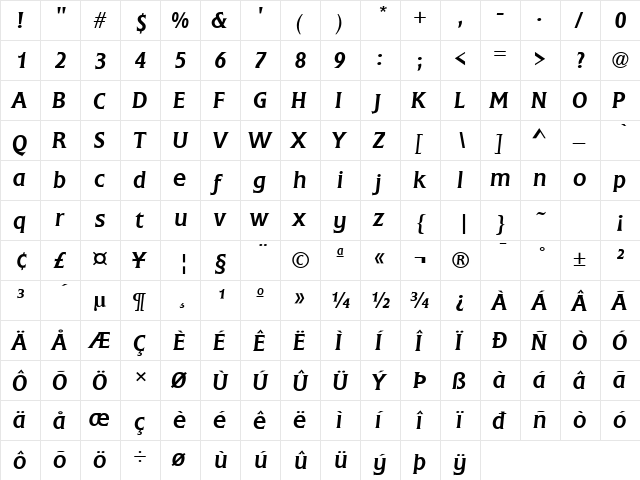
Flare Gothic ITALIC Font Preview
Flare Gothic ITALIC
Design Context for Flare Gothic Typeface
Flare Gothic takes a clean, functional approach — its unadorned letterforms prioritise legibility and work reliably across screen and print environments. The dynamic lean of this cut emphasises speed and emphasis in any layout.
Font Pairing: Works well alongside a characterful serif or display font that can carry the expressive load while Flare Gothic handles the functional copy.
Pro Tip: Use Flare Gothic for UI labels, navigation, and short-form body copy where clean legibility is the priority.